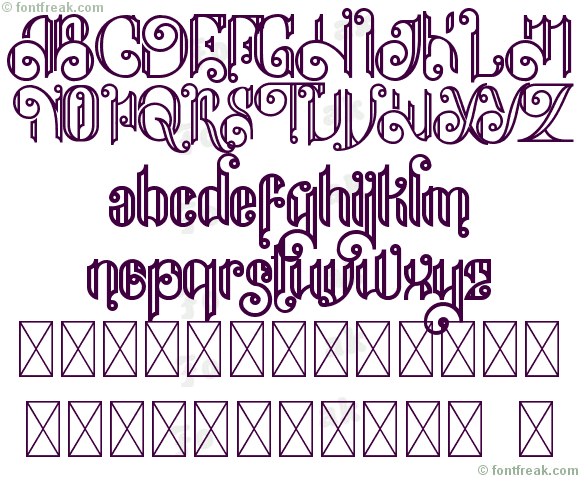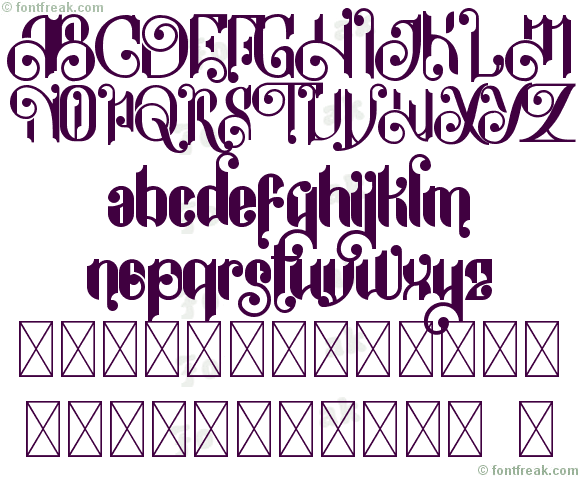
RageSoul Demo
RageSoul Demo Outline
RageSoul Demo is a striking display font designed by Noah Type, characterized by its bold, decorative style that captures attention instantly. This free-to-download font features an outline design that lends a unique visual appeal, making it perfect for projects that require a touch of creativity and flair. The stroke weight varies throughout the characters, creating a dynamic contrast that adds depth and interest. The spacing is thoughtfully crafted, ensuring legibility while maintaining an artistic touch. With its swirls and playful ornamentation, RageSoul offers a whimsical yet sophisticated aesthetic.
Ideal for various applications, RageSoul Demo is particularly well-suited for wedding invitations, where its elegant flair can enhance the sentimental value of the occasion. It also shines in movie posters, providing a dramatic and eye-catching title treatment that draws viewers in. Small business owners can utilize this font in branding materials, such as shop signage or promotional flyers, to stand out in a competitive market. Additionally, content creators looking to add a distinctive style to their social media graphics will find RageSoul an excellent choice, as it effectively conveys personality and creativity.
Targeting graphic designers, small business owners, and content creators alike, RageSoul Demo offers versatility that appeals to a broad audience. Its unique charm and visual impact make it a valuable addition to any designer's toolkit. The RageSoul Demo font free download allows users to explore its potential without financial commitment, making it accessible for projects of all sizes. In a world saturated with fonts, RageSoul stands out not just for its aesthetic but for its ability to evoke emotion and capture the essence of creativity, making it a fantastic choice for anyone looking to make a lasting impression.